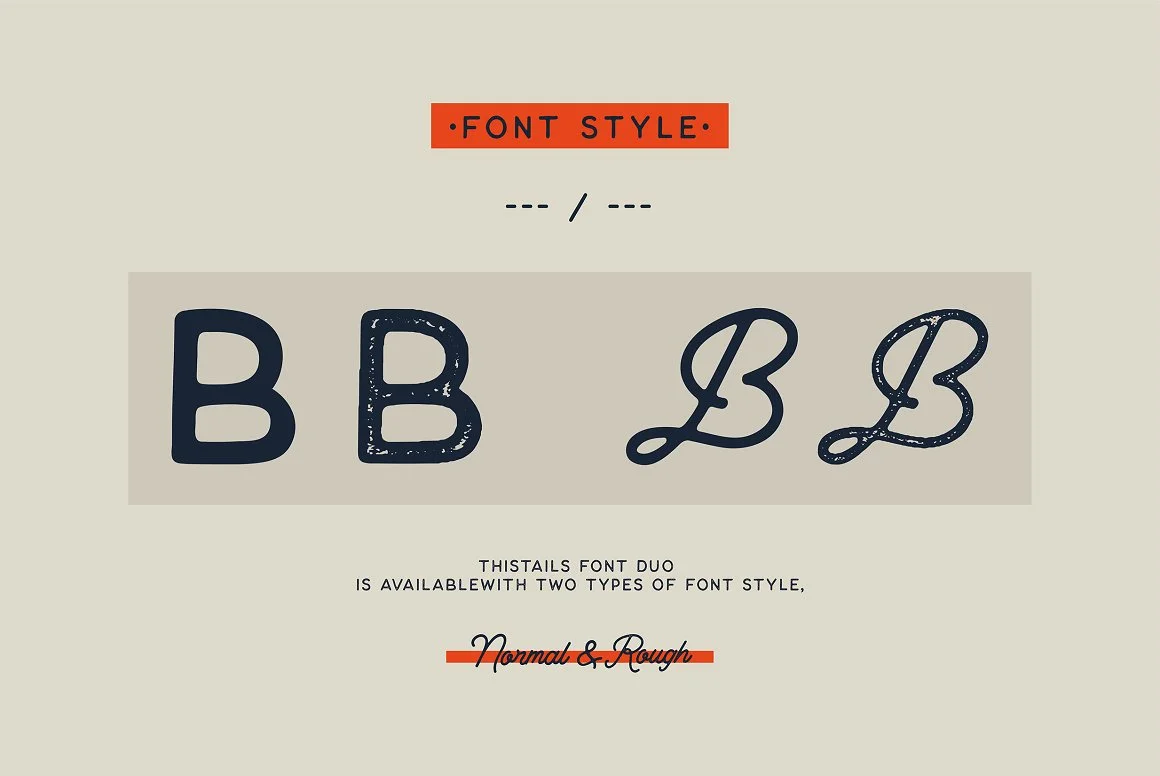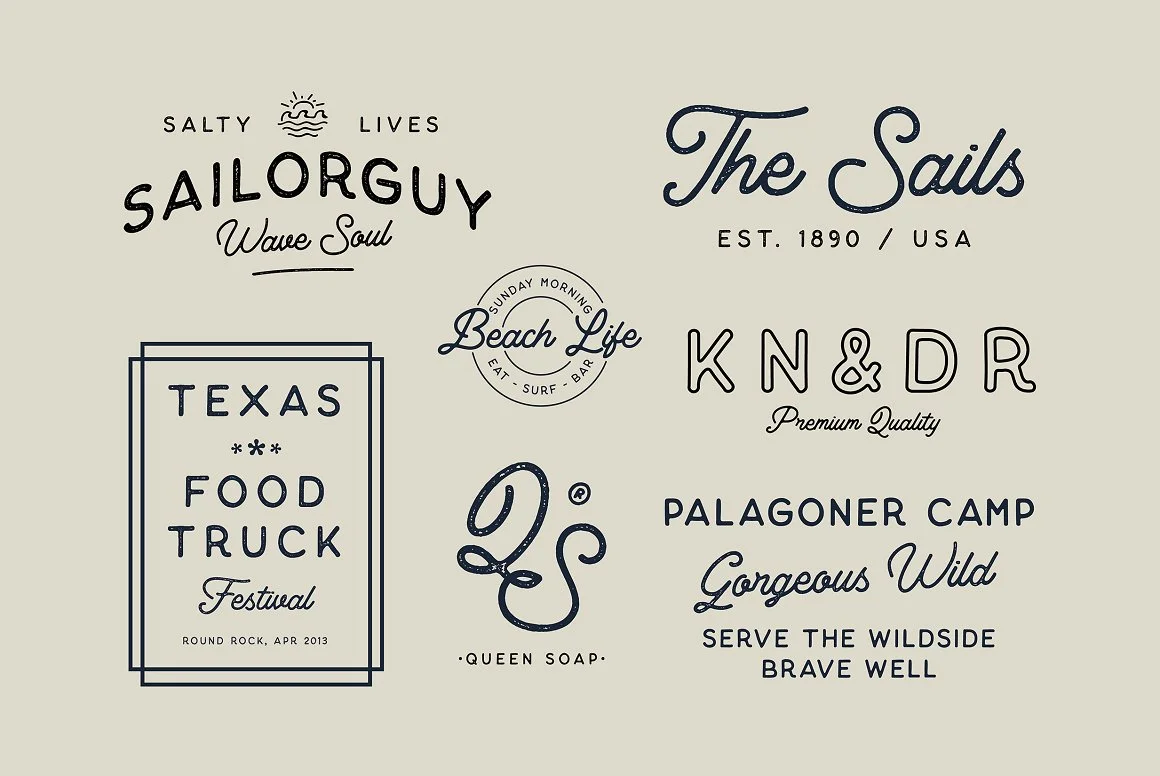
Thistails is font duo with modern vintage look design styles, available on script and Display Sans serif typeface. These two lovely fonts would be perfect to combine in your design. Suitable for digital lettering, logo, t-shirt, print, business cards, branding materials, quotes, nature photography, etc, made with hand painted and carefully crafted.
Swashes
Thistails Font Duo Features :
Ligatures
Stylistic Set